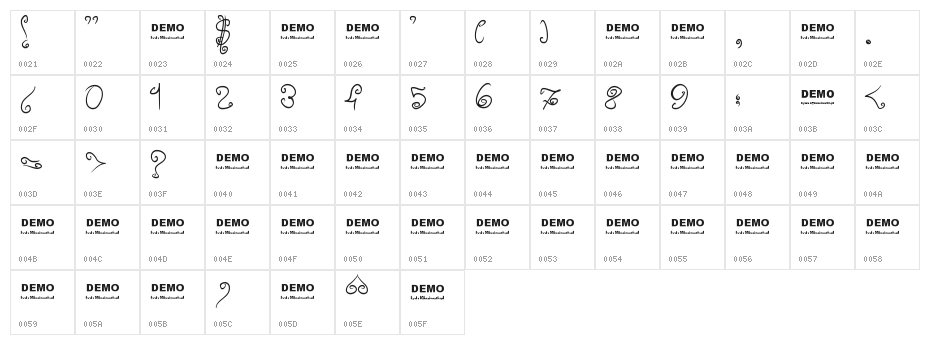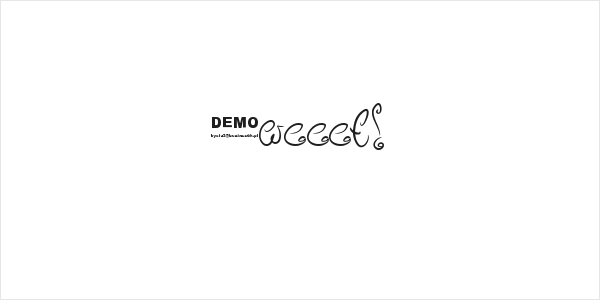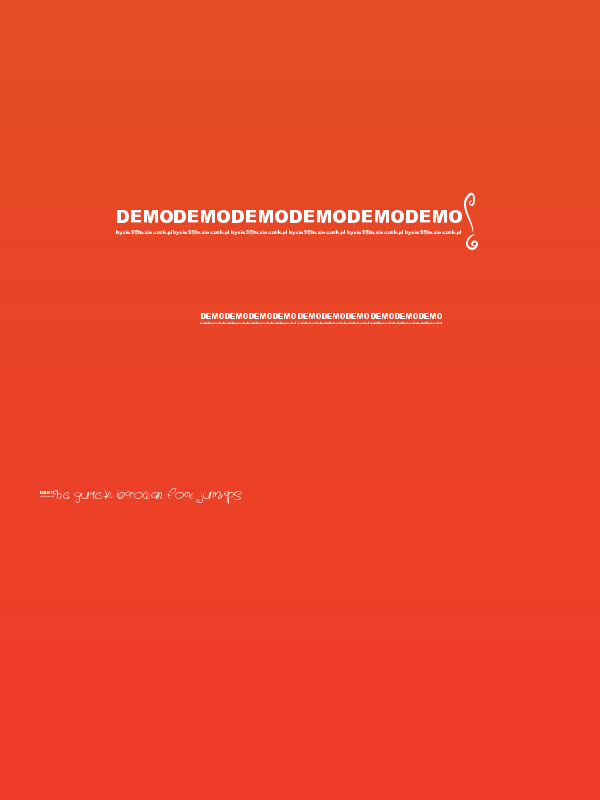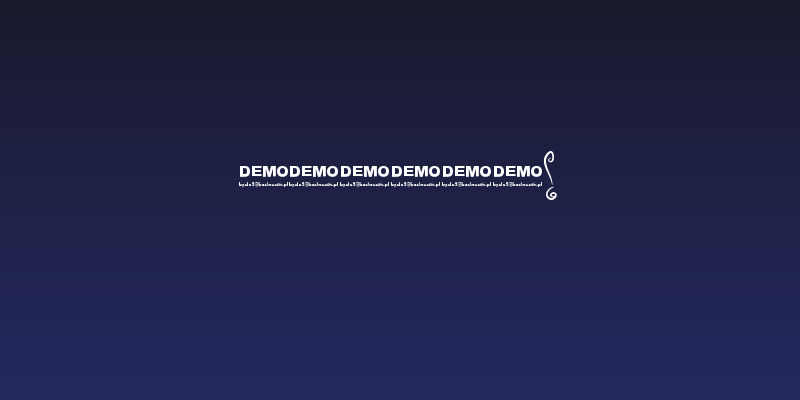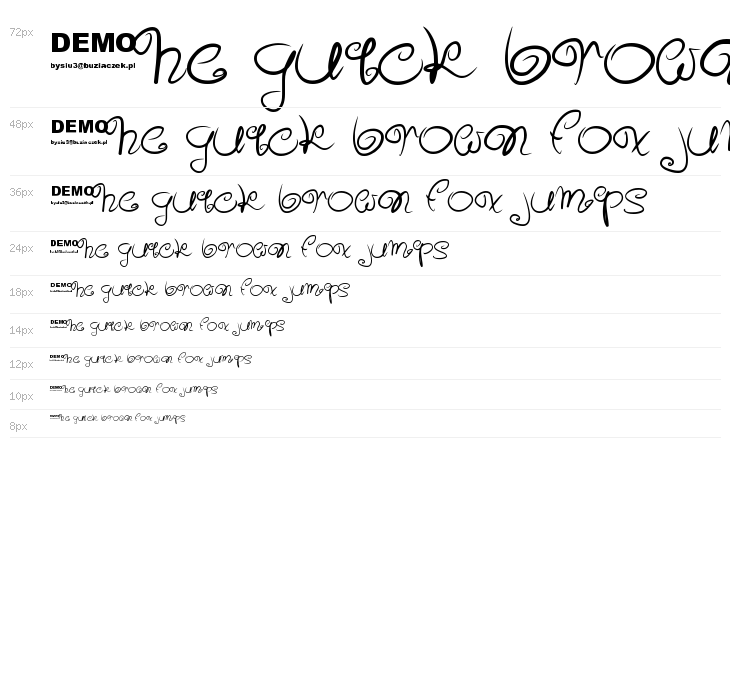
Sweeet! Font
Sweeet! Description
This font features a whimsical and playful design with a handwritten style. The characters are crafted with elegant curves and loops, giving them a lively and dynamic appearance. The uppercase letters are bold and expressive, while the lowercase letters maintain a consistent flow with a touch of flair. Numbers and special characters are designed to match the overall aesthetic, ensuring a cohesive look. The font's unique style makes it suitable for creative projects that require a personal and artistic touch.
| Use Case | Logos, Invitations, Creative projects |
| Proposed Projects | Ideal for greeting cards, invitations, children's books, and creative branding. |